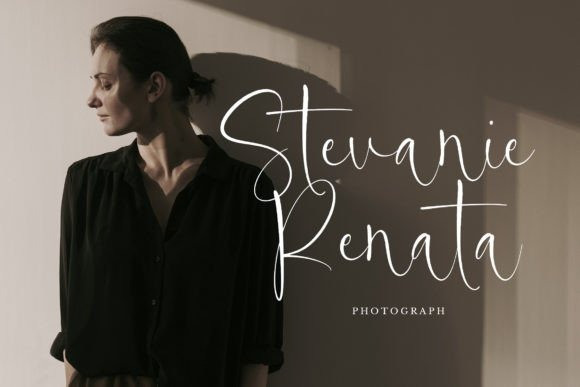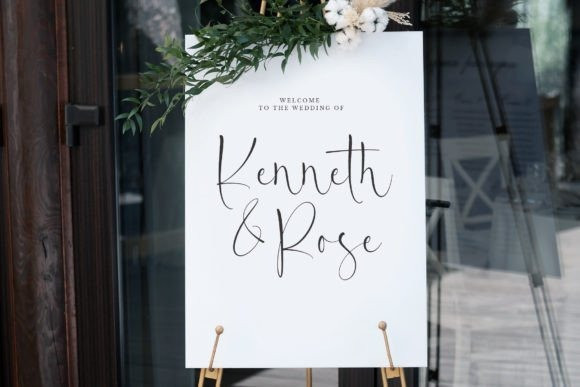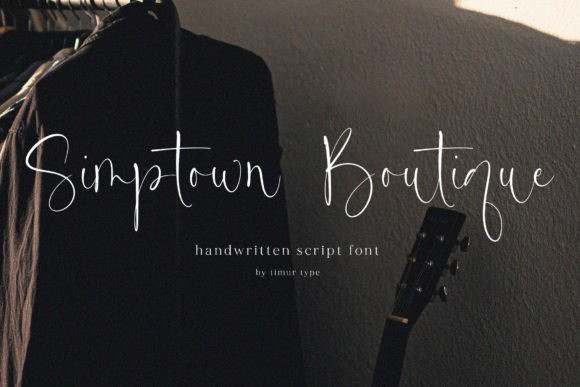
Simptown Boutique Font
Simptown Boutique Font is an elegant, handwritten font and is perfect for product packaging, branding project, magazines, social media, weddings, or just used to express words above the background.